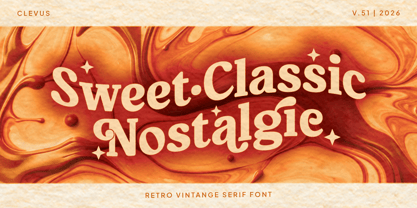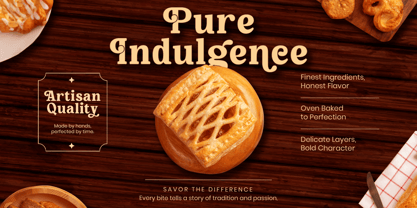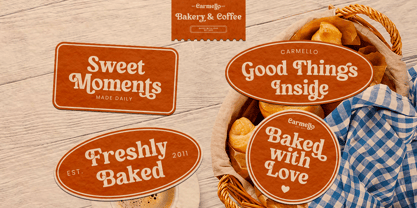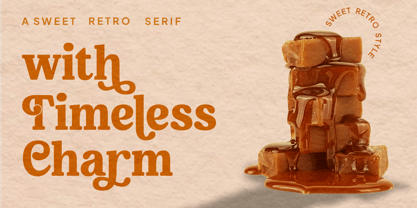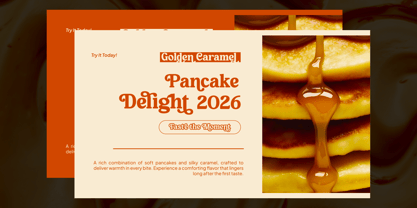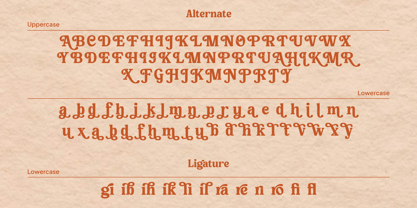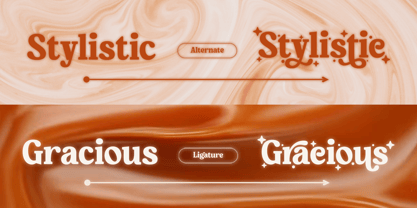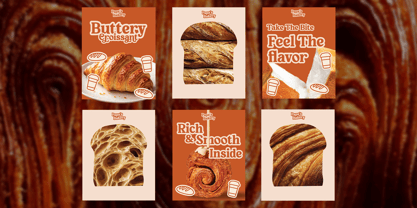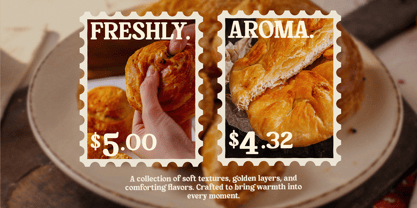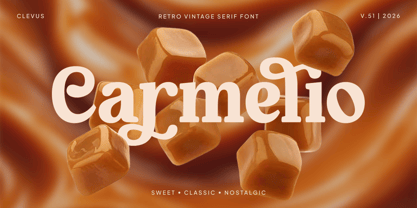
Carmelio
by Clevus
The Carmelio Font Family was designed by Alfinu Zafir and published by Clevus. Carmelio contains 1 styles. More about this family
Introducing Carmelio, a bold and playful vintage serif font that brings a touch of nostalgia to your designs. Designed to elevate your brand, its vintage aesthetic is versatile, making it a great choice for a wide range of projects, from packaging and advertising to editorial design and more.
Font Features:
- Letters, numbers, symbols, and punctuation
- 40+ alternates and ligatures
- Multilingual Support
Designers: Alfinu Zafir
Foundry: Clevus